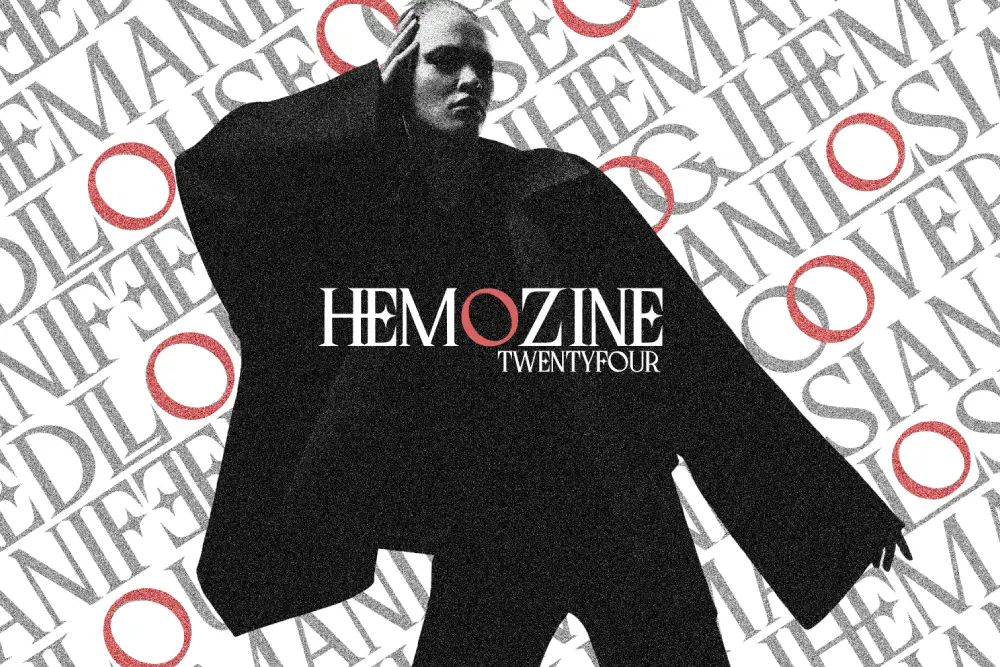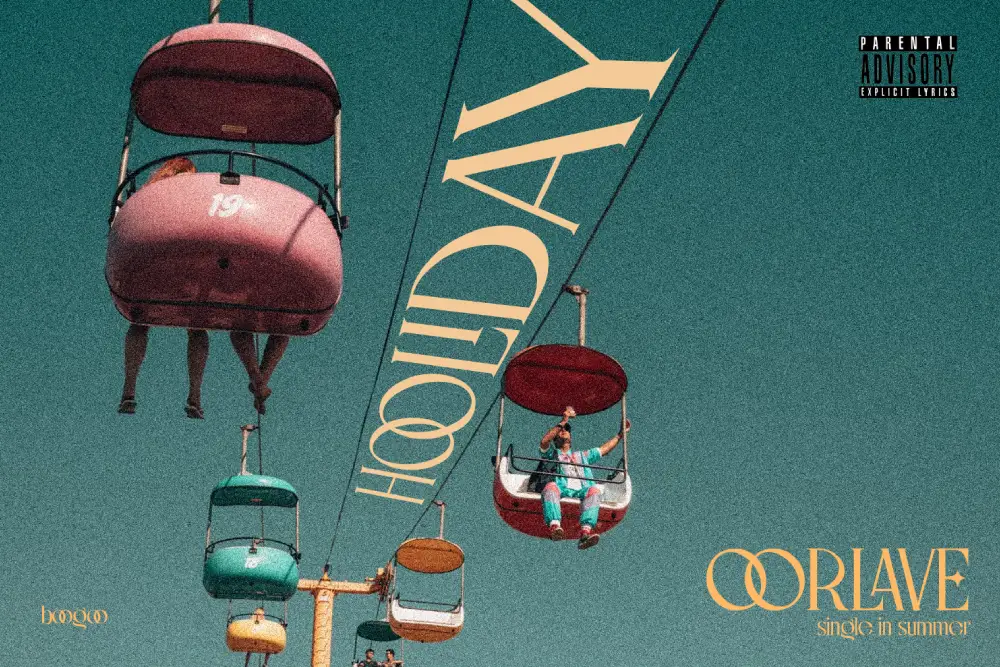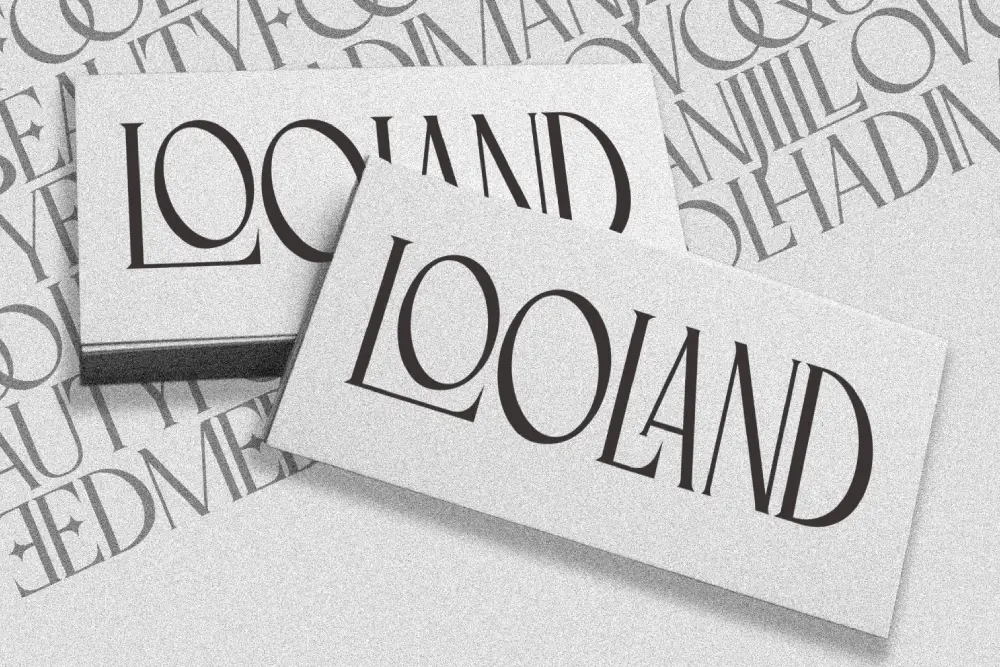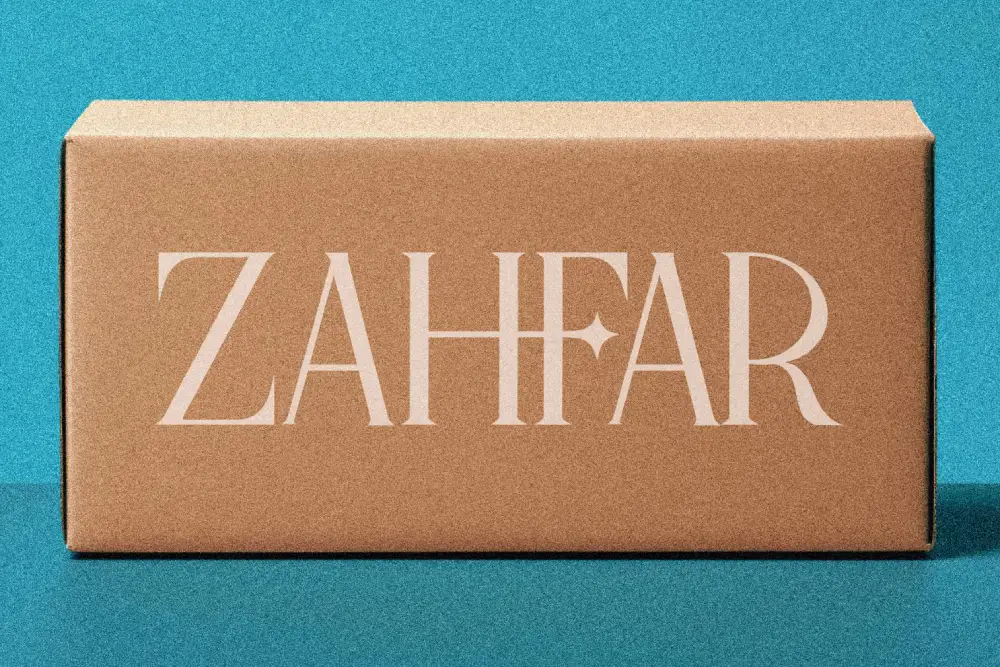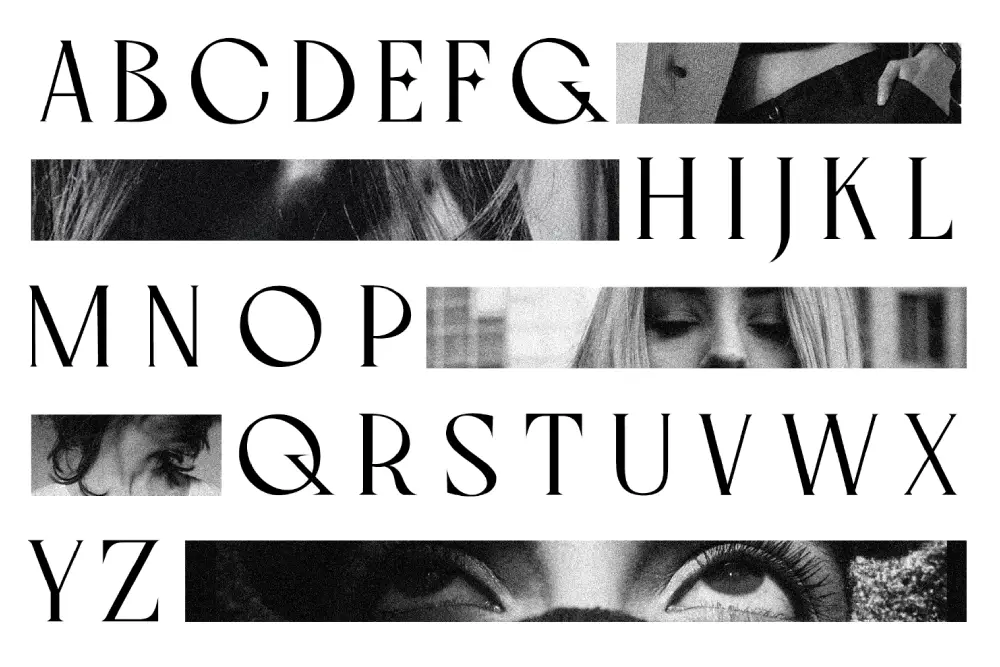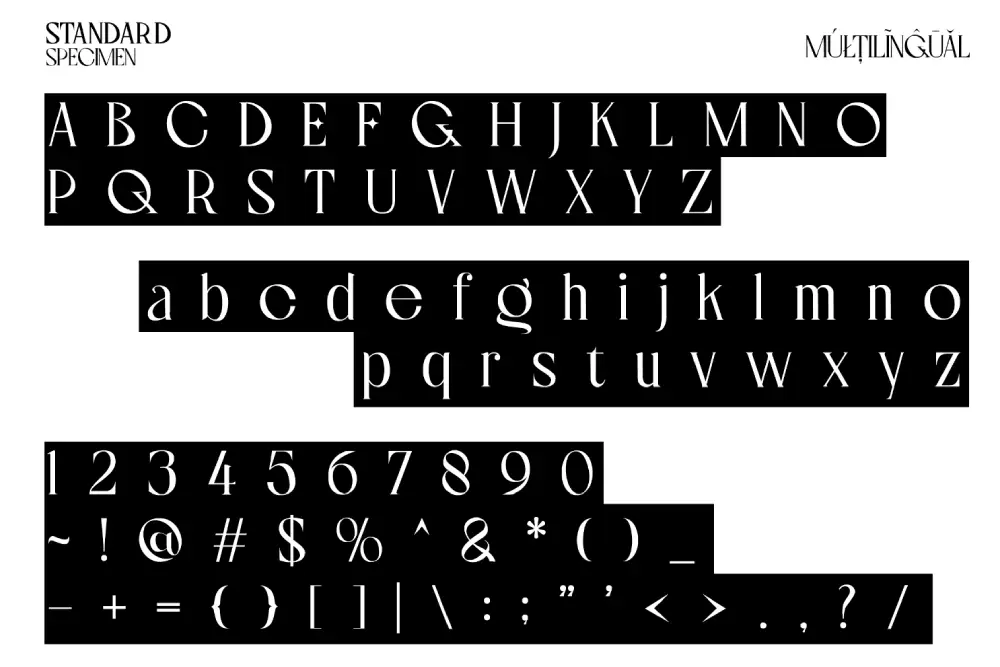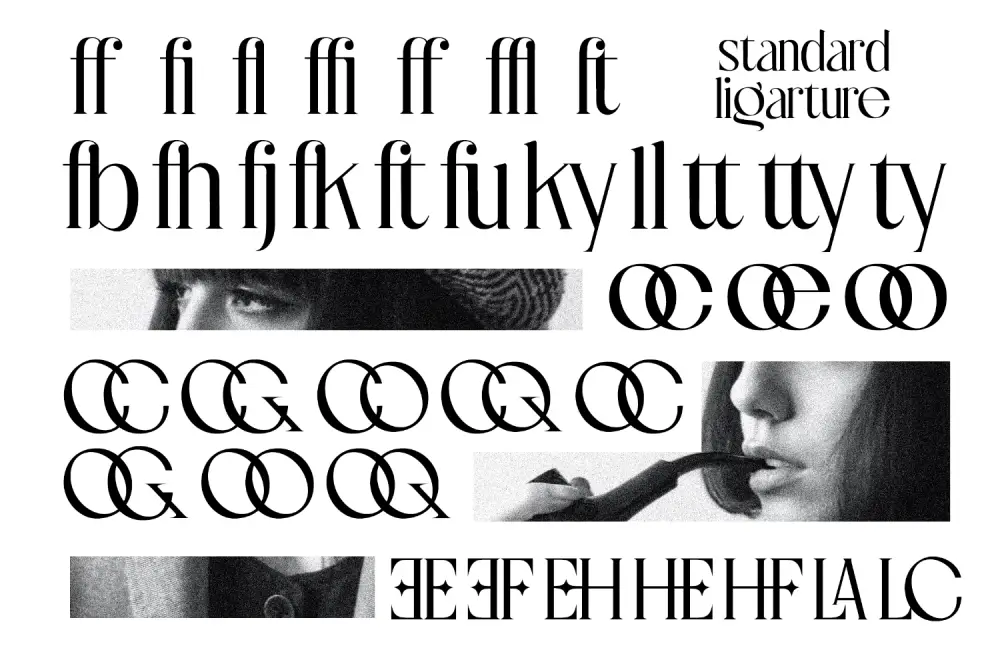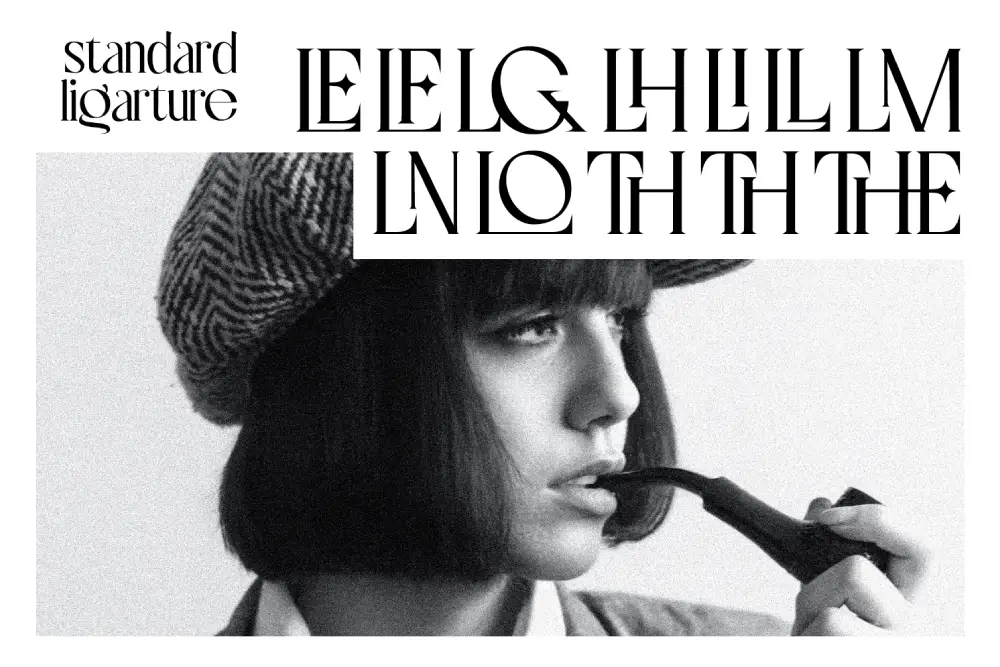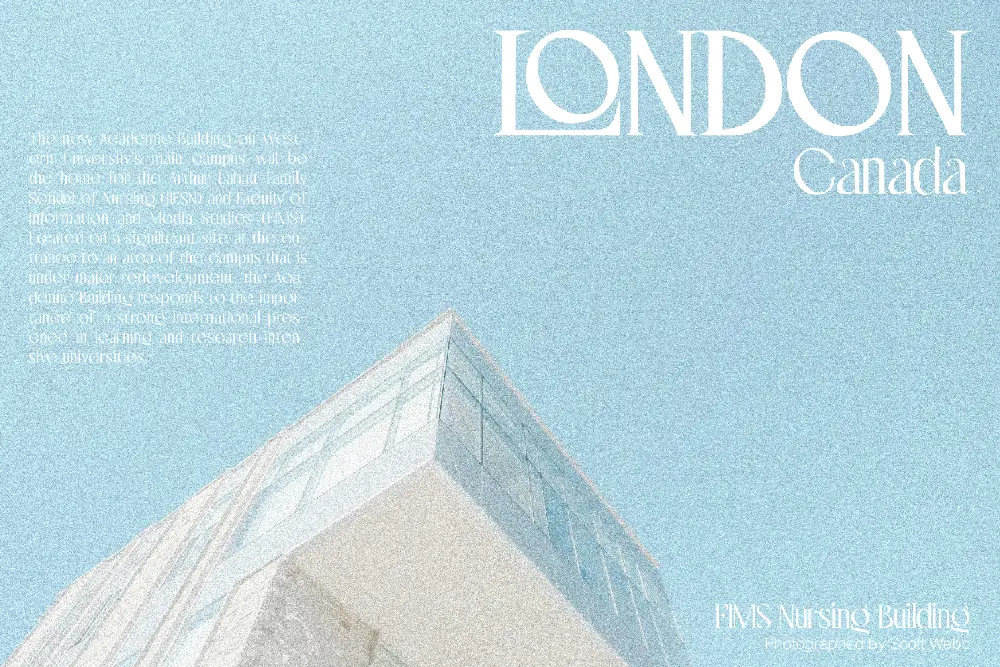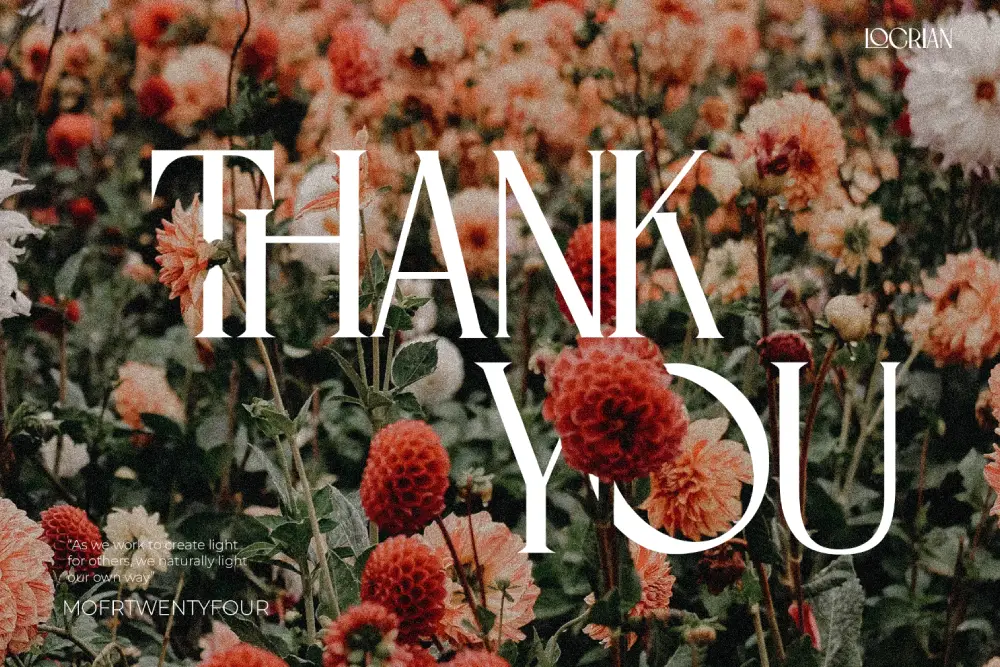
Locrian – Luxury Serif Font for Elegant Premium Branding
Typography defines the visual voice of a brand, and few typefaces capture sophistication as perfectly as Locrian – Luxury Serif Font. Designed with timeless elegance, modern proportions, and refined ligatures, this font brings luxury and power to every creative project. From editorial magazines to premium product branding, Locrian’s versatility and high-end aesthetic make it the perfect choice for designers seeking both class and clarity.
The luxury serif font category demands precision and personality, and Locrian delivers both. Its balance of modern geometry and classic serif detail allows it to stand out across industries—from fashion houses to tech startups seeking a refined identity.
Luxury Serif Font Crafted for Timeless Elegance
Locrian was built with one goal: to bring sophistication to modern typography. As a luxury serif font, it combines strong vertical contrast with smooth curves and unique ligatures that evoke refinement. Each letterform has been carefully balanced for harmony and readability, making it equally stunning in both print and digital formats.
Whether you’re designing for a magazine, corporate rebrand, luxury product, or high-end portfolio, Locrian adapts effortlessly while maintaining a distinctive voice. Its graceful serifs and sharp precision elevate every design into a statement of confidence and luxury.
Key Features of Locrian – Luxury Serif Font
• Complete Character Set: Uppercase, Lowercase, Numbers, Punctuations
• Multilingual Support: Extended Latin coverage for global design projects
• Unique Ligatures: Crafted to enhance premium editorial and logo compositions
• Regular & Bold + Italic Styles: Complete family for flexible typography systems
• Luxury Design Aesthetic: Ideal for branding, magazines, product packaging, and elegant web design
Why Designers Love Locrian
Designers around the world appreciate Locrian because it merges technical precision with artistic elegance. As a luxury serif font, it speaks to those who value both craftsmanship and visual storytelling.
• Versatile for Luxury Branding: Perfect for high-end products, editorial layouts, and fashion or lifestyle projects.
• Distinctive Ligatures: Create logos that feel custom-made and unforgettable.
• Balanced Weight Options: Regular, Bold, and Italic provide flexibility for headlines and body text.
• Modern Yet Timeless: Works across digital and print media with equal sophistication.
• Pairing Ready: Combines beautifully with sans-serif companions for complete visual systems.
Perfect Font Pairings for Locrian
These combinations ensure that Locrian – Luxury Serif Font becomes a cornerstone of your typography palette—balanced, elegant, and adaptable across contexts.
Locrian for Premium Logos and Editorial Headlines
Logos define brands, and headlines capture attention. Locrian’s precision, proportion, and extended serifs make it a top-tier choice for designers creating luxury logos or editorial mastheads. This luxury serif font is ideal for fashion labels, real estate companies, hospitality brands, and luxury magazines aiming to convey authority and class.
Its subtle ligatures add sophistication without overcomplicating designs, giving each composition a touch of craftsmanship.
Locrian in Digital and Print Media
The beauty of Locrian lies in its adaptability. This luxury serif font works as elegantly on websites as it does in print. Use it for hero titles on landing pages, magazine covers, editorial spreads, or brand books. The availability of regular, bold, and italic styles provides creative control to maintain hierarchy and consistency across multiple touchpoints.
Locrian’s timeless character ensures it will remain relevant through evolving design trends.
Why Locrian is the Best Choice for Luxury Branding
In an era where design defines trust and value, Locrian stands as a luxury serif font that communicates professionalism, beauty, and confidence. With complete weight variations, elegant ligatures, and multilingual support, it’s more than a typeface—it’s a brand asset.